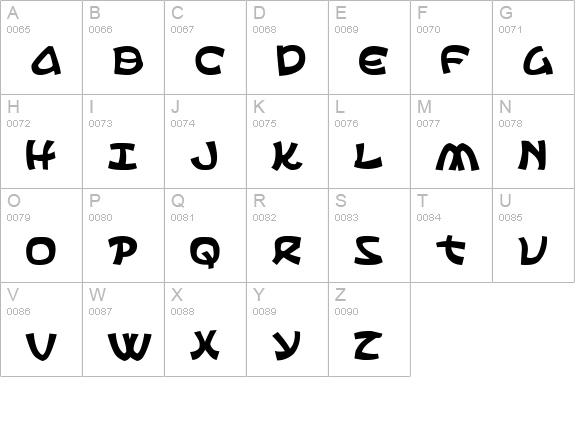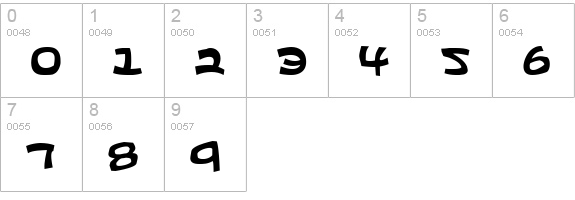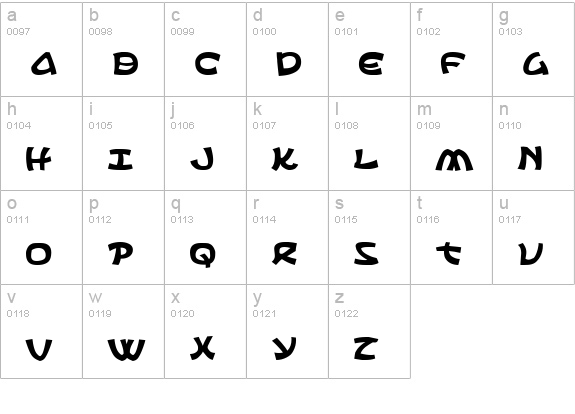
Ephesian font is a modern and elegant typeface that exudes sophistication and style. With its clean lines and versatile design, Ephesian is perfect for a wide range of projects, from branding to editorial design. This striking font effortlessly combines classic elements with a contemporary twist, making it a timeless choice for any design endeavor. The best part? Ephesian font is available for free download at FontsMarket.com. This means that you can add this beautiful typeface to your collection without any cost, making it accessible to designers of all levels. Don't miss out on the opportunity to elevate your projects with the timeless charm of Ephesian font, now available for free at FontsMarket.com.